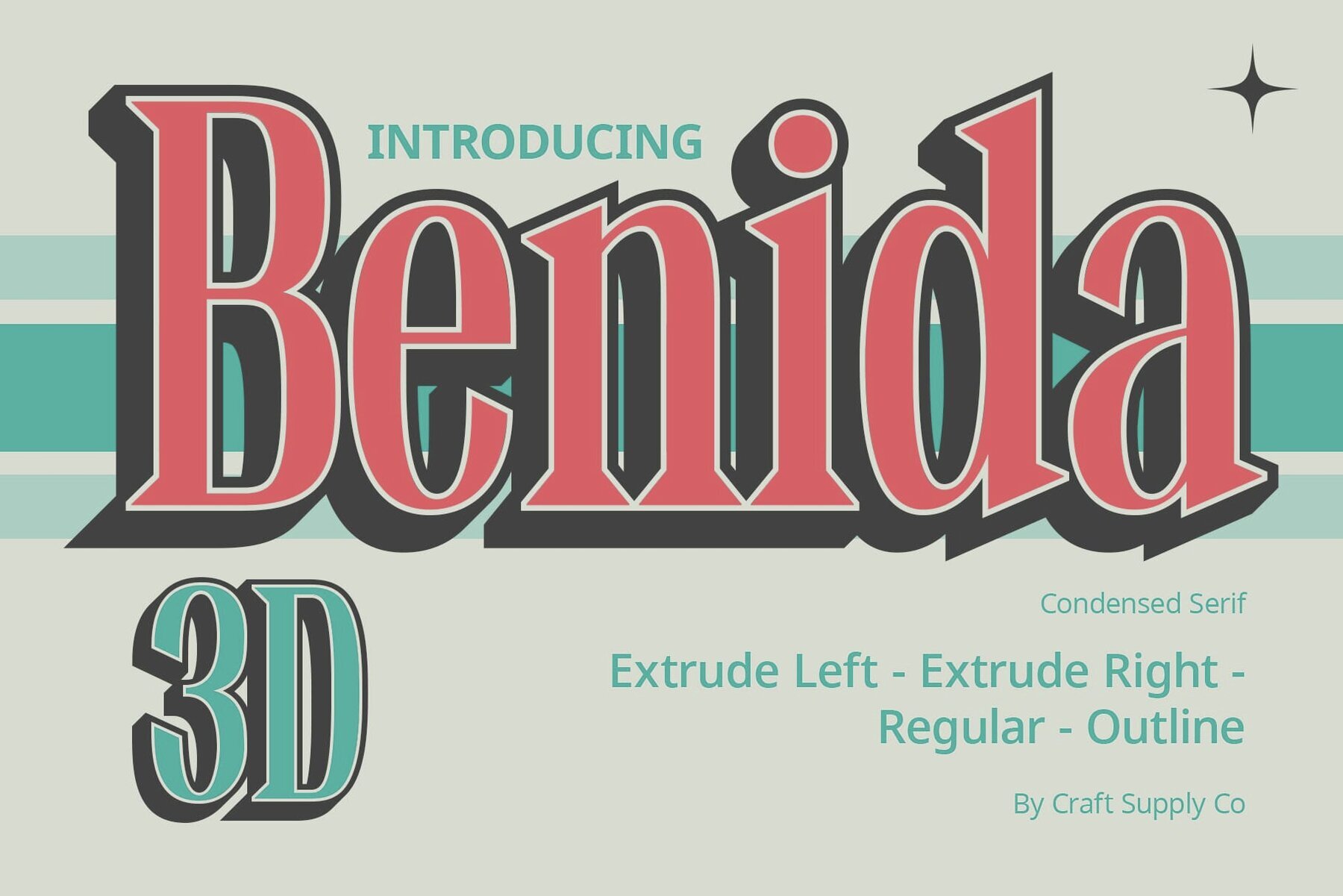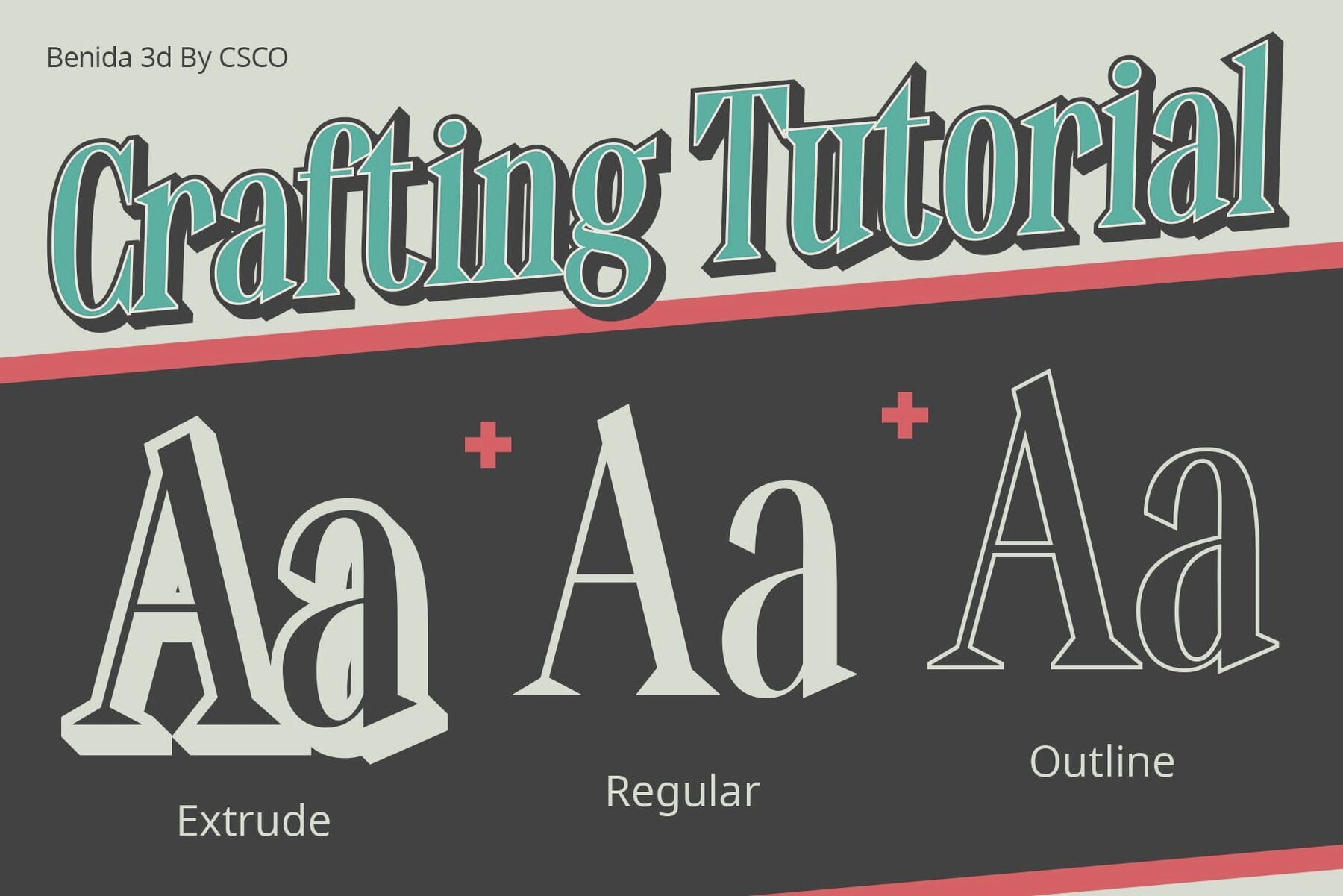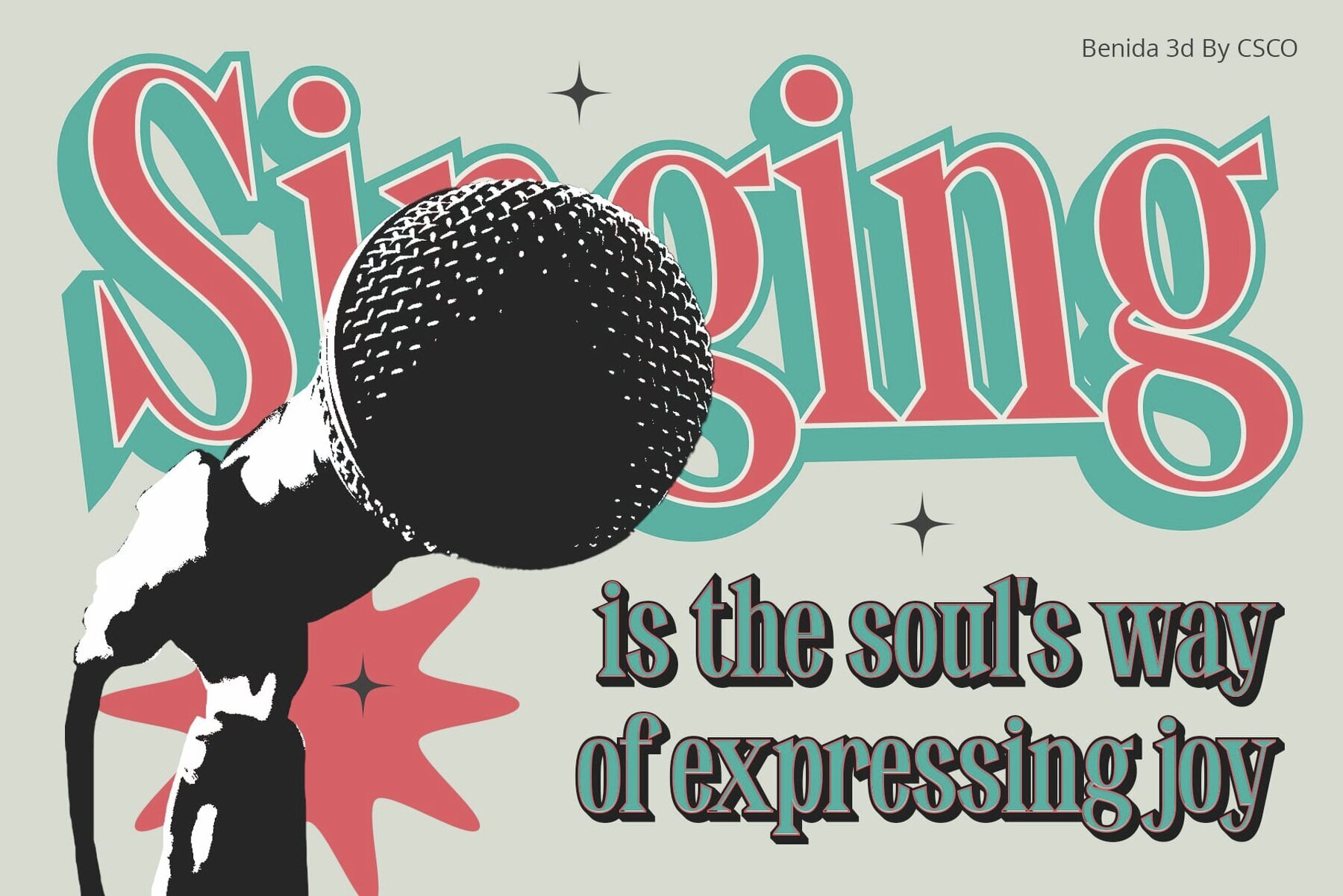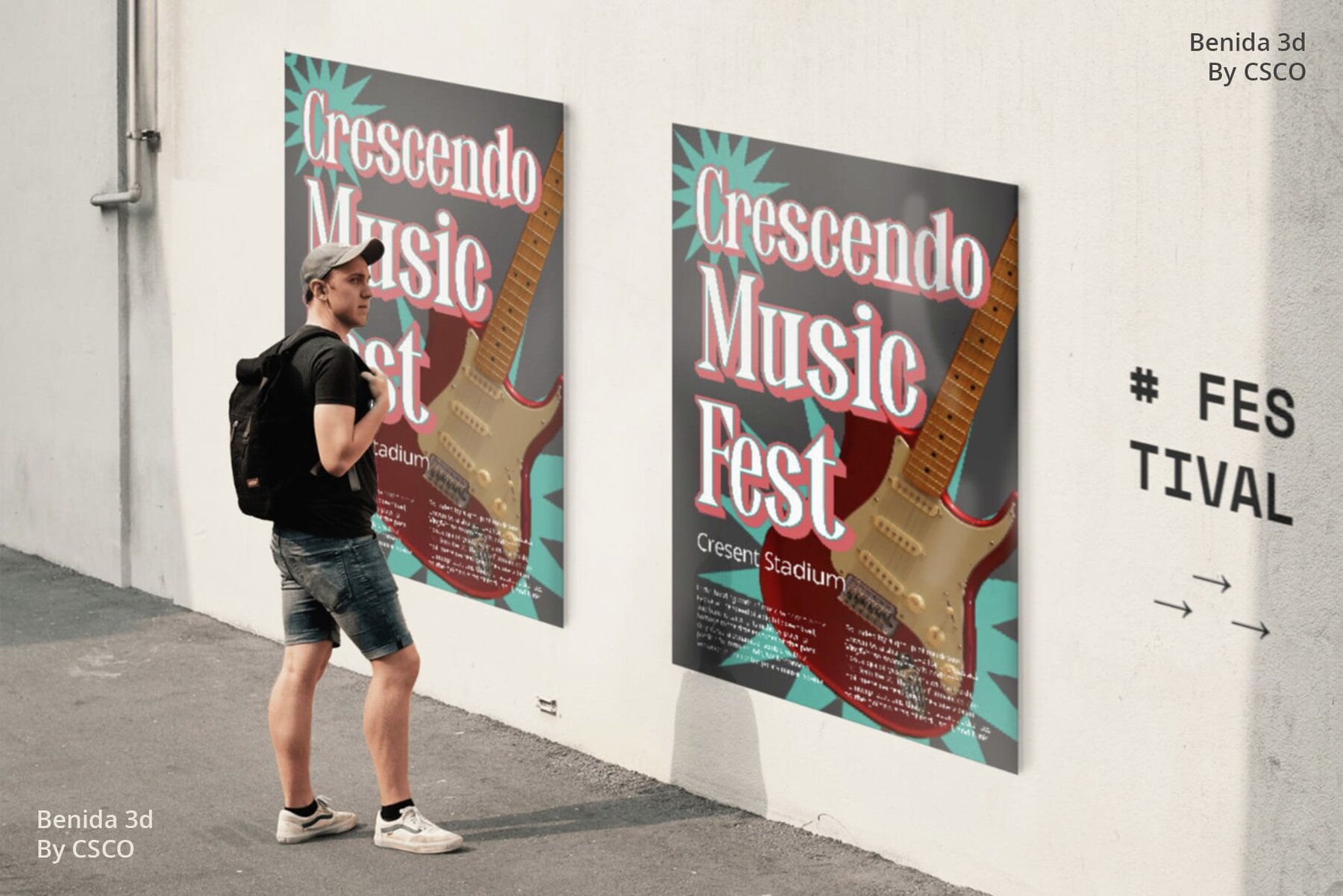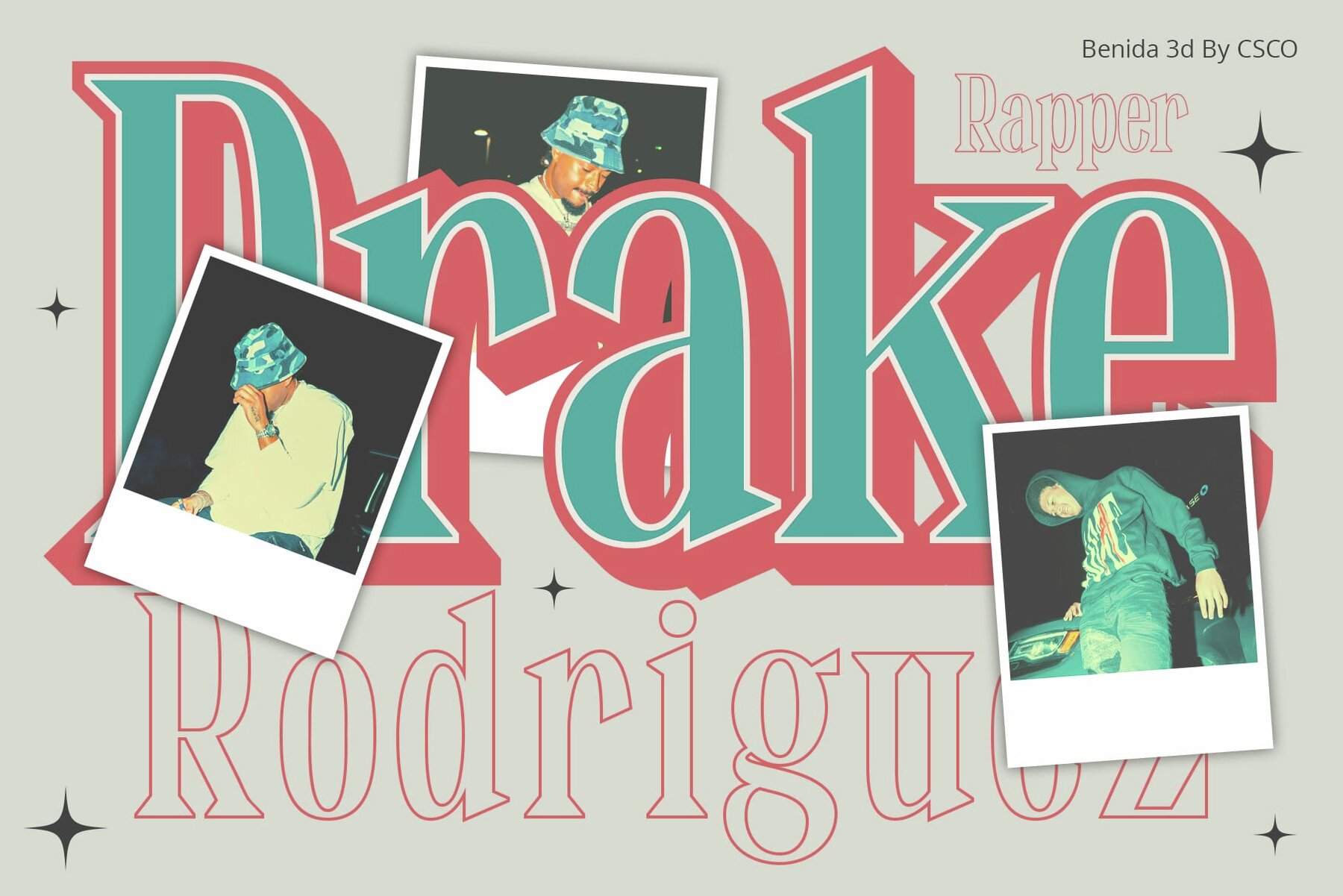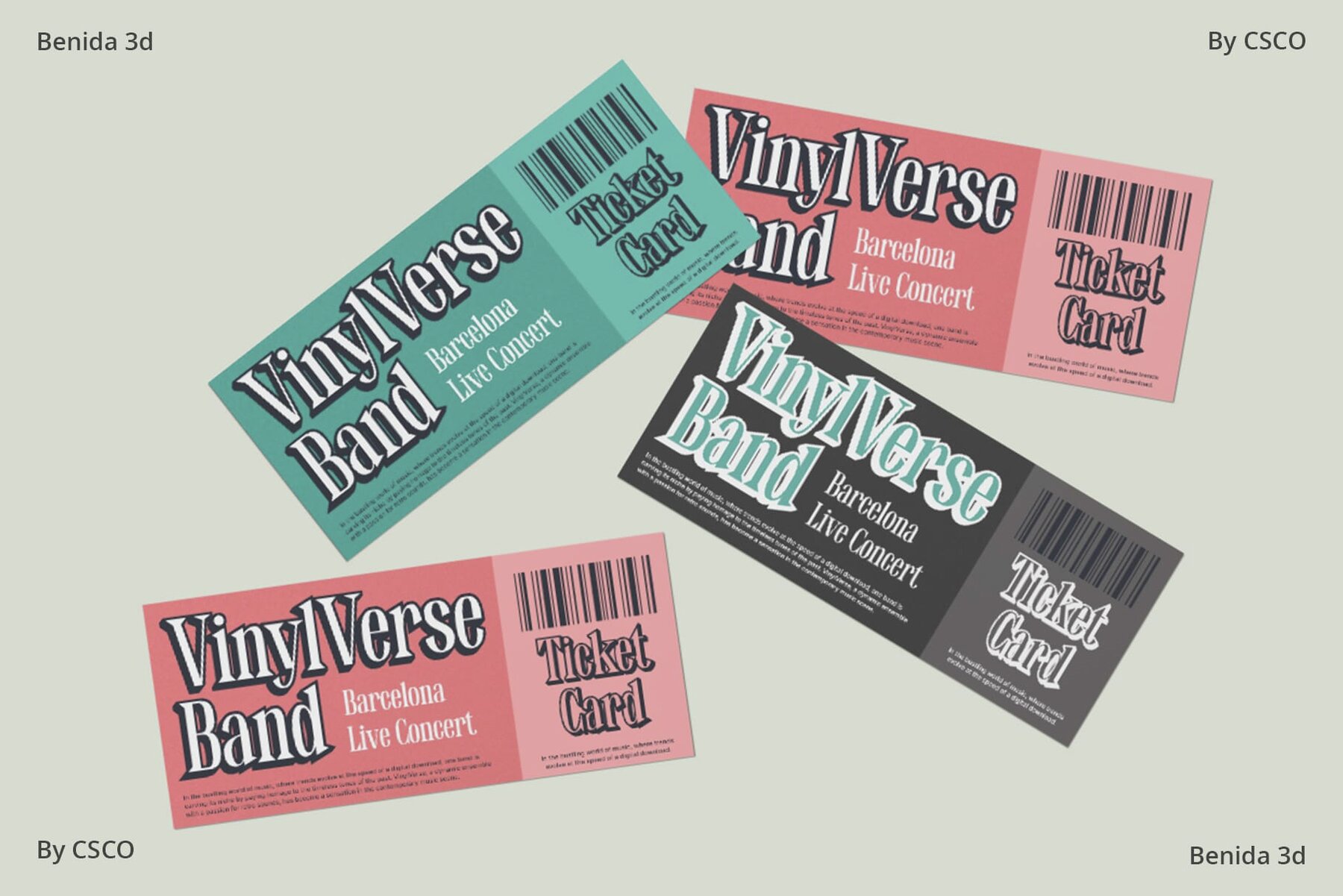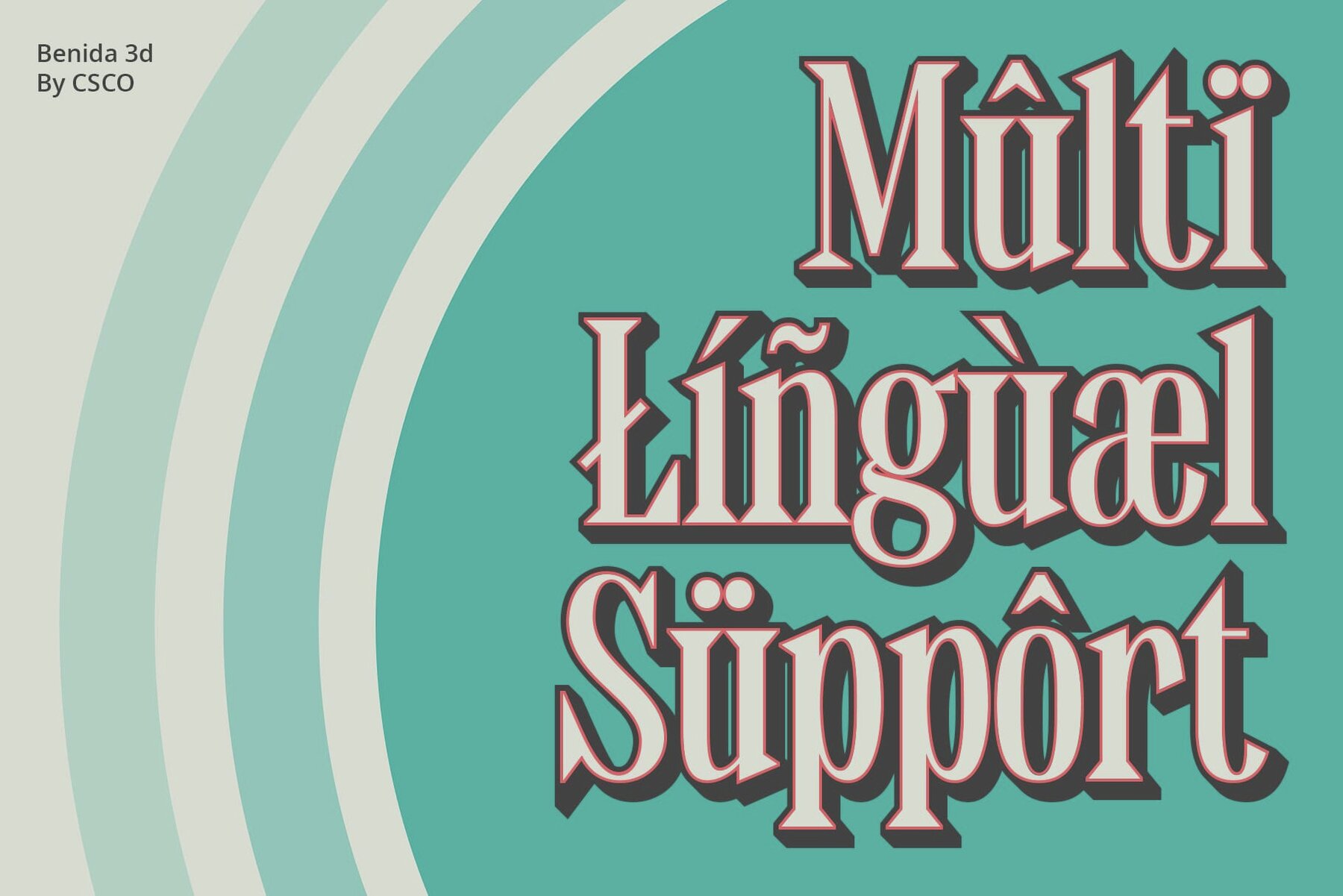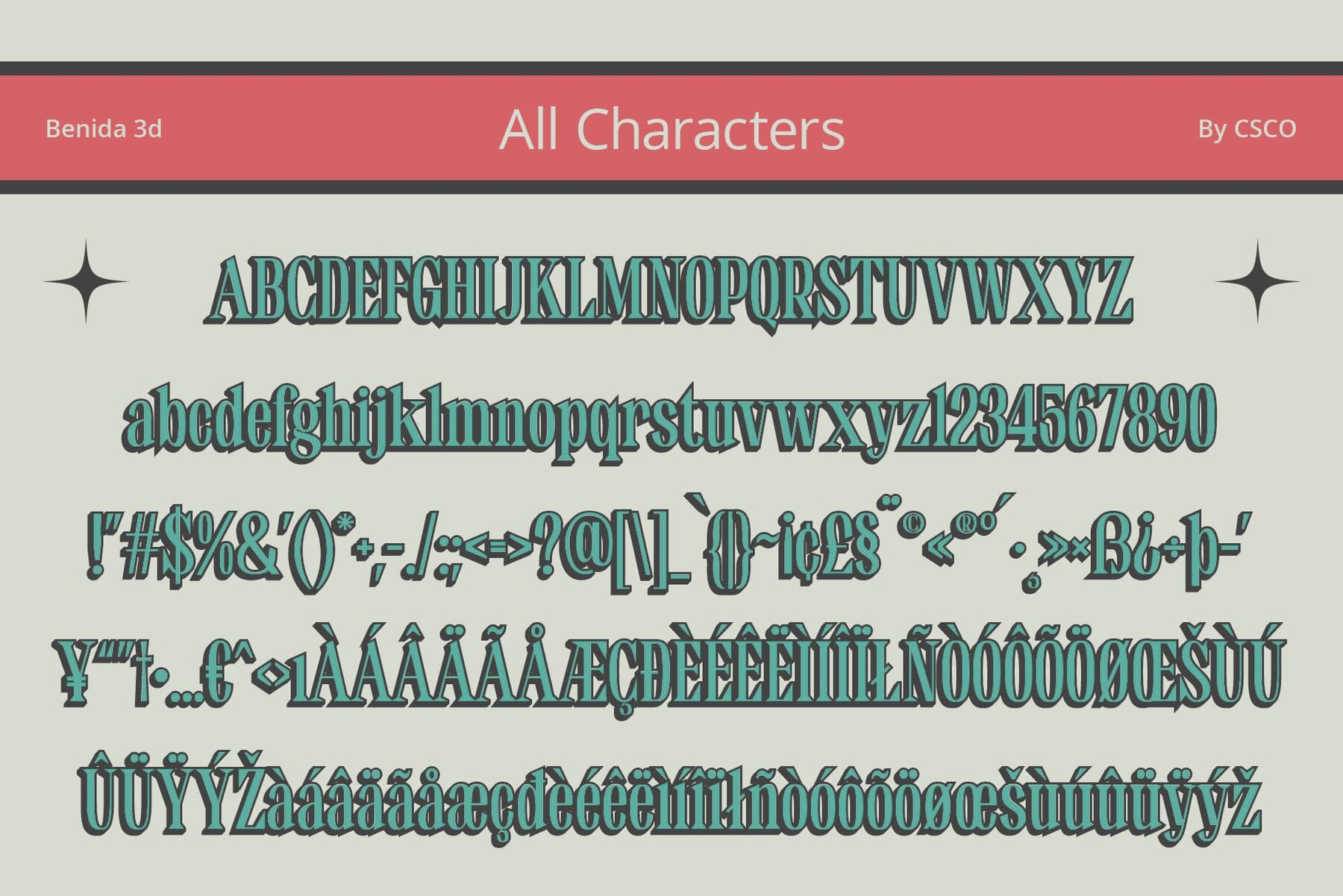
Benida 3D Font
Benida 3D by Craft Supply Co. offers a remarkable display presence with its dimensional elegance, combining basic serif shapes and a condensed structure to create a dynamic and impactful visual experience. Benida 3D commands attention with its serif structures, offering a dynamic and impactful display that is perfect for headlines, banners, and beyond. The font's condensed serif design ensures enhanced readability, making it an excellent choice for various display purposes where space efficiency is key. Experience a new dimension with Benida 3D, where the stunning 3D effect adds depth and intrigue to every character, elevating your designs from flatness to a captivating three-dimensional appearance. Whether you're designing a sleek modern website or a vintage-inspired poster, Benida 3D adapts seamlessly. Its versatility makes it an ideal choice for a wide range of projects, ensuring your creativity knows no bounds. Benida 3D is not just a font; it's a dynamic design asset that transforms your display projects with its condensed serif structure and mesmerizing 3D effect. This font is your gateway to dimensional elegance and visual impact. This typeface can be used without the need for specialized software. For any inquiries or assistance, please feel free to contact us. We appreciate your support in enhancing your creative projects! Best regards, Craft Supply Co.Benida 3D: Elevate Your Display with Dimensional Elegance
Dynamic Display Presence
Enhanced Readability with Condensed Serifs
Immerse in 3D Depth
Versatility for Every Project